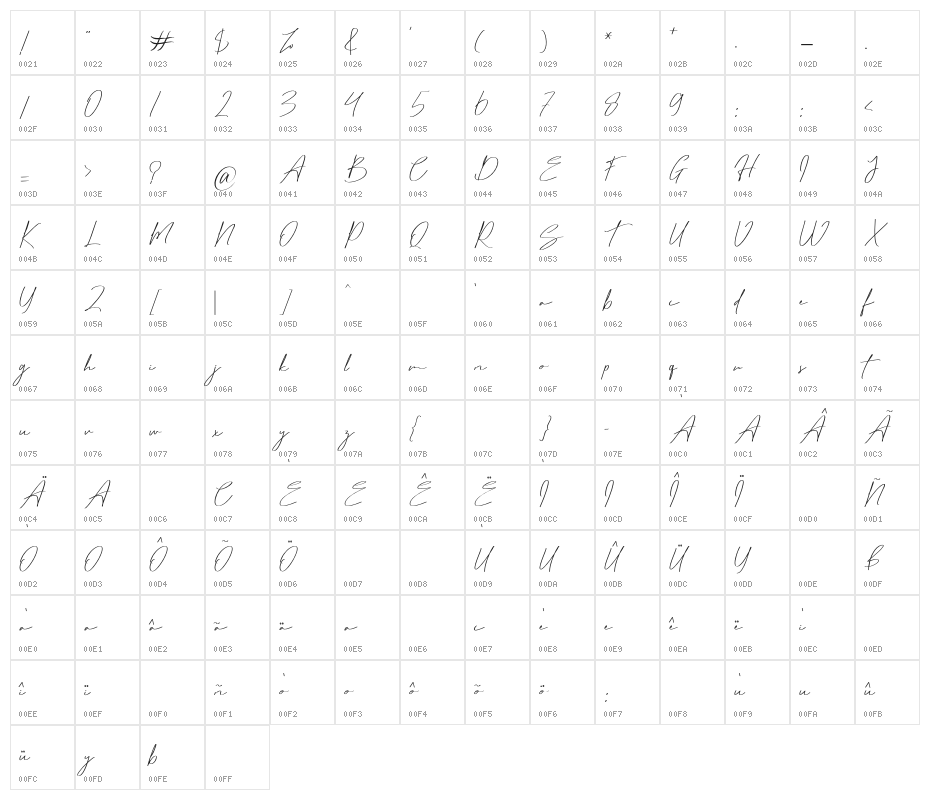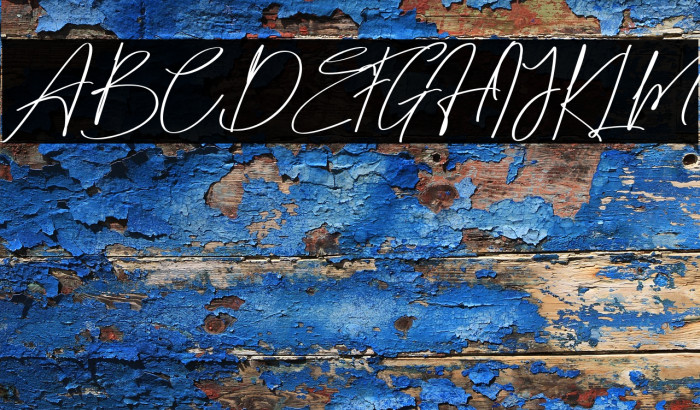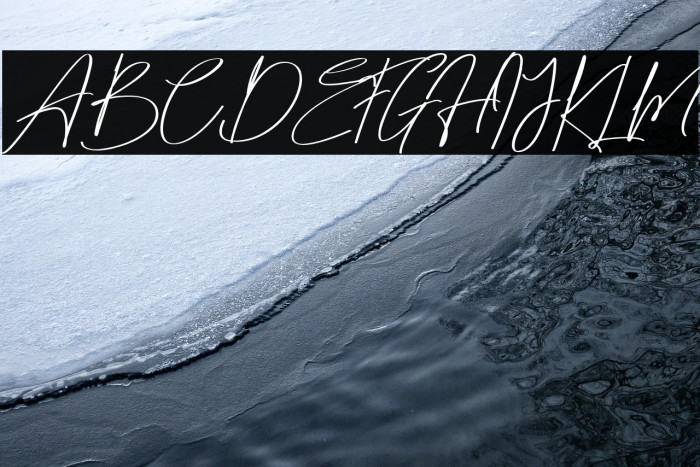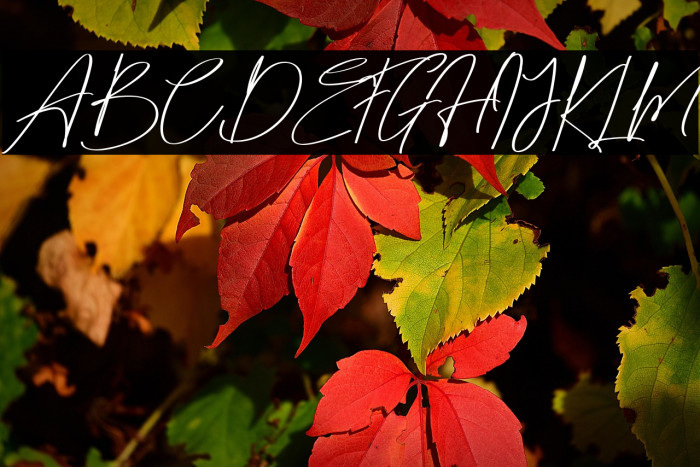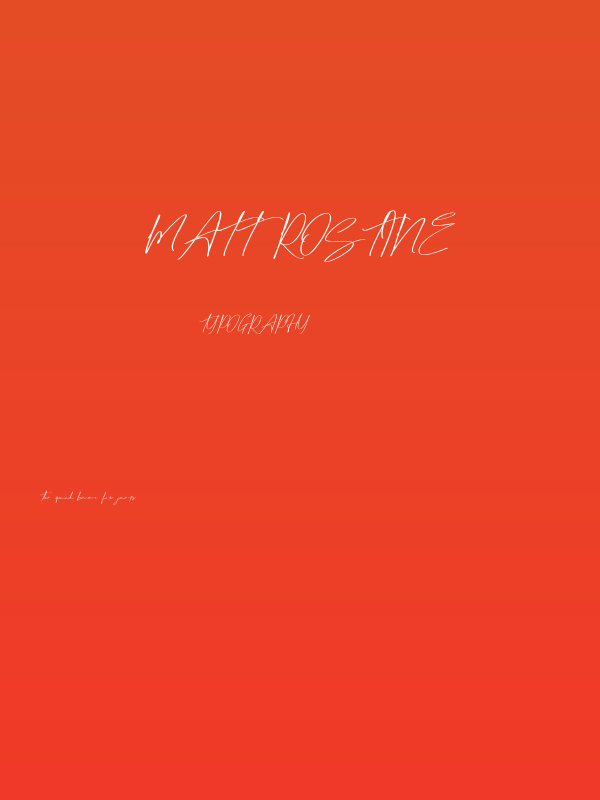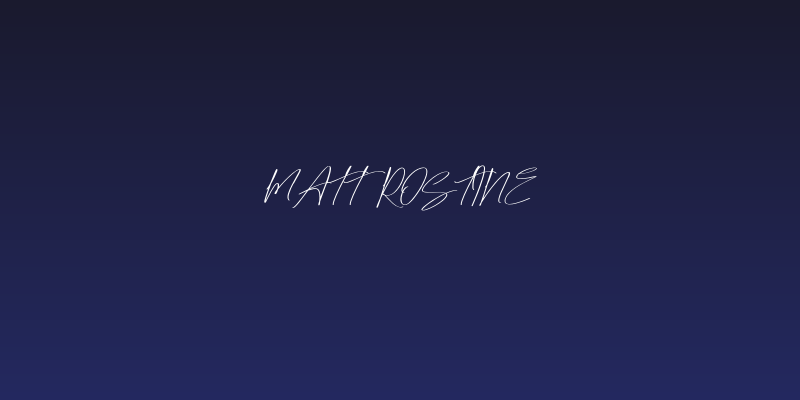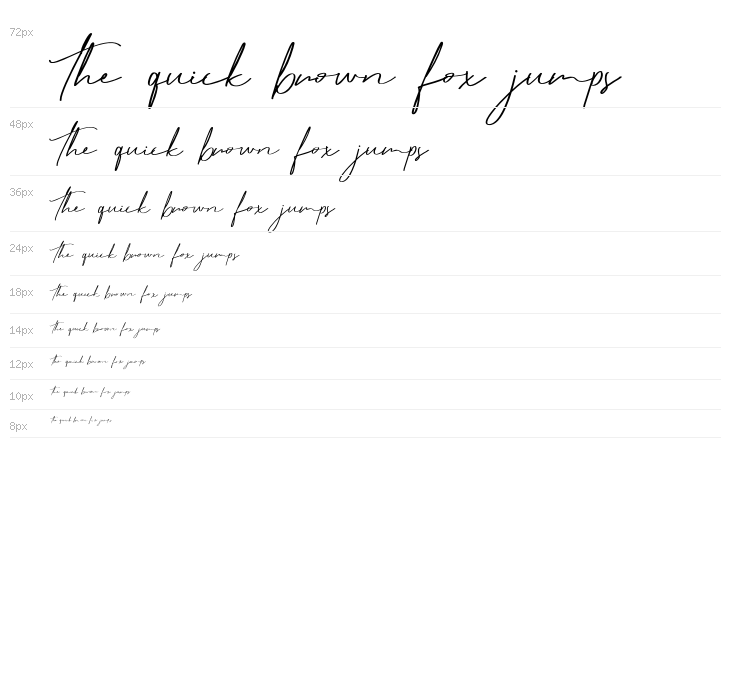
Matt Rostine Font
This font exudes a sense of elegance and fluidity, characterized by its cursive, handwritten style. The letters are crafted with a graceful, flowing motion, giving it a personal and artistic touch. The strokes are thin and delicate, with a consistent slant that enhances its sophisticated appearance. The uppercase letters are bold and prominent, while the lowercase letters maintain a more subtle and refined look. The numbers and special characters are seamlessly integrated, maintaining the overall aesthetic of the font. Its airy and open design makes it suitable for projects that require a touch of elegance and creativity.
| Overall Style | Elegant, Artistic |
| Use Case | Logos, Invitations, Artistic projects |
| Proposed Projects | Ideal for wedding invitations, personal branding, greeting cards, and artistic projects. |